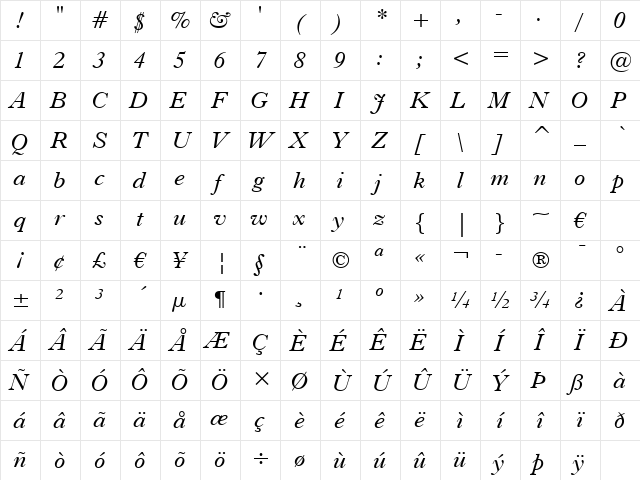
Dutch766 BT Italic
Dutch766 BT Italic Family
Dutch766 BT Italic
Dutch766 BT Italic Font Preview
Dutch766 BT Italic Preview
Dutch766 BT Italic Character Map
Complete Dutch766 BT Italic glyph index. Displaying only characters natively supported by Dutch766 BT Italic font.
Design Context for Dutch766 BT
Dutch766 BT is a composed and adaptable typeface that performs quietly and consistently across a wide range of design contexts. The slanted form adds forward momentum and visual energy.
Pro Tip: Use Dutch766 BT for emphasis, pull quotes, and subheadings where its slanted energy can add rhythm to the layout.